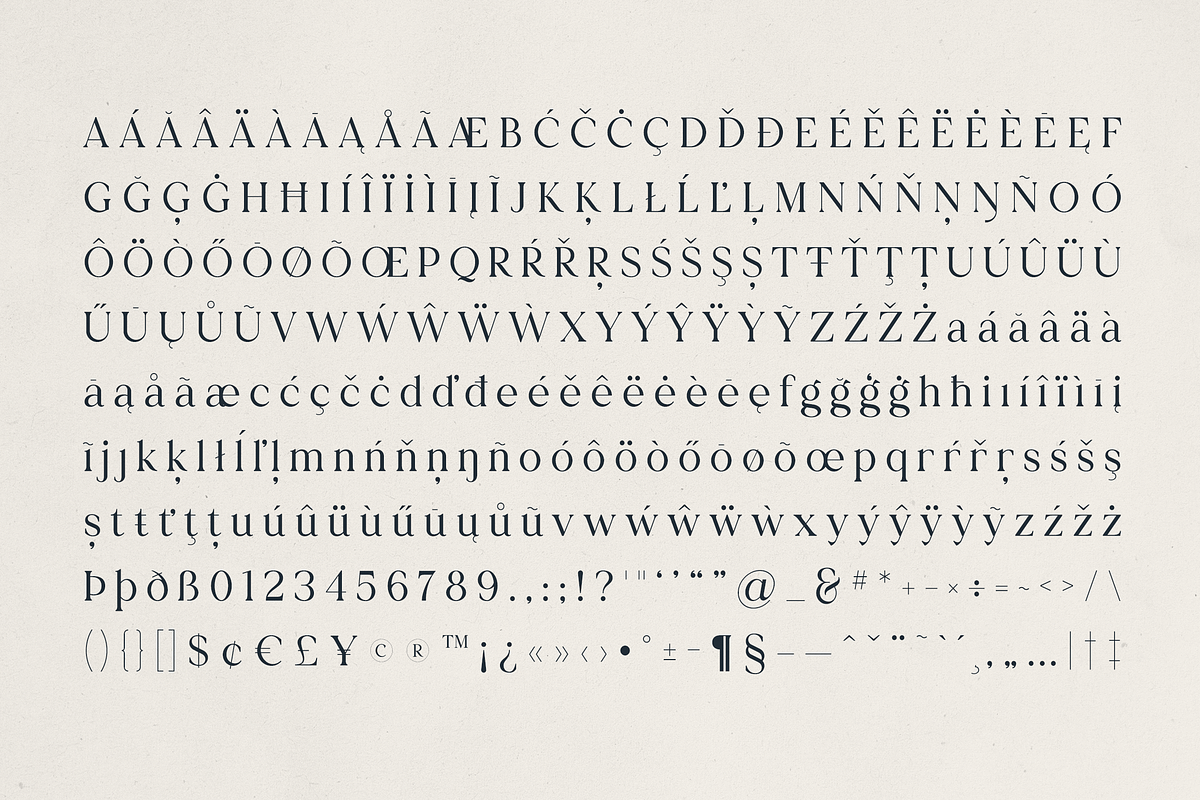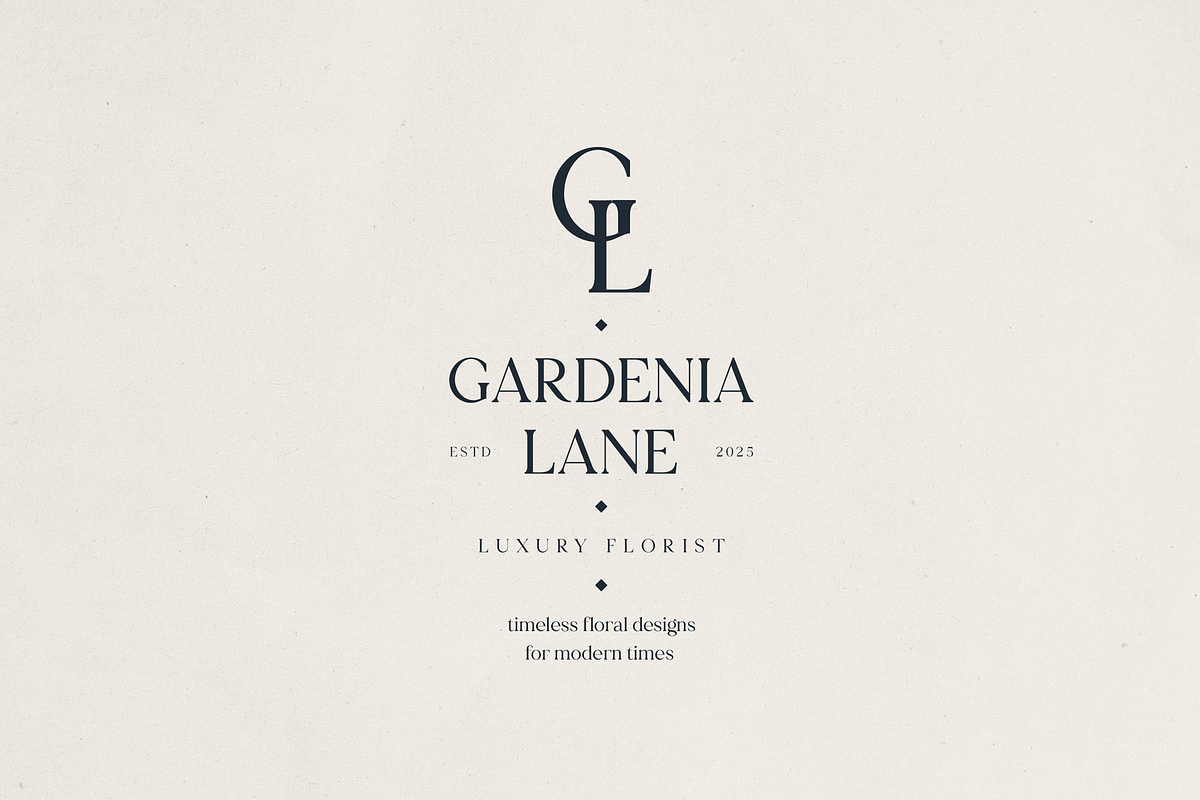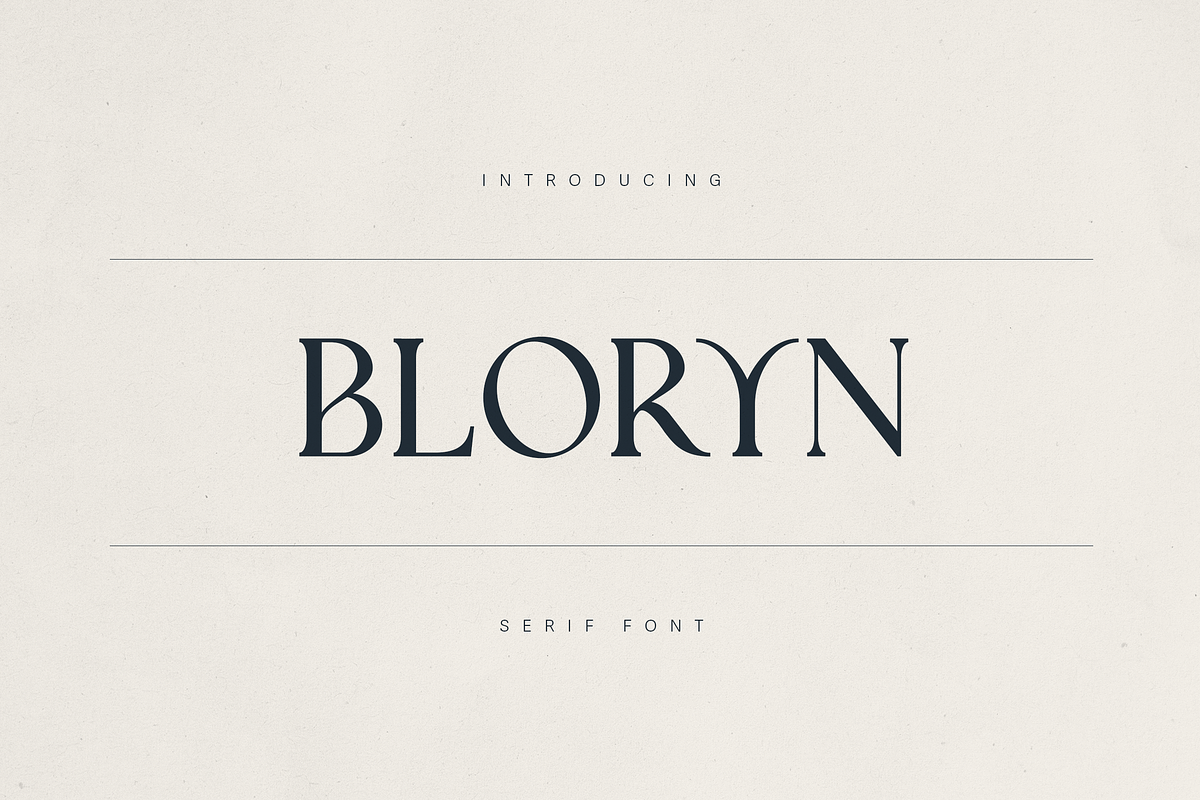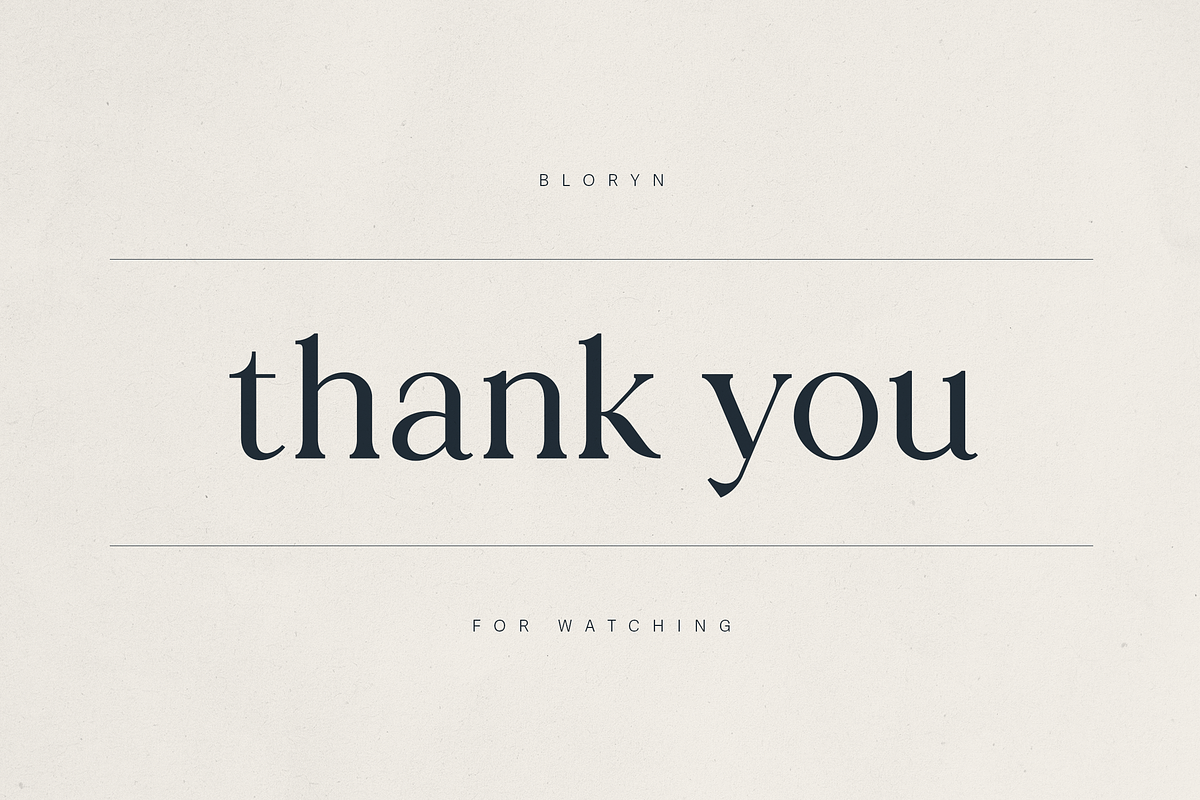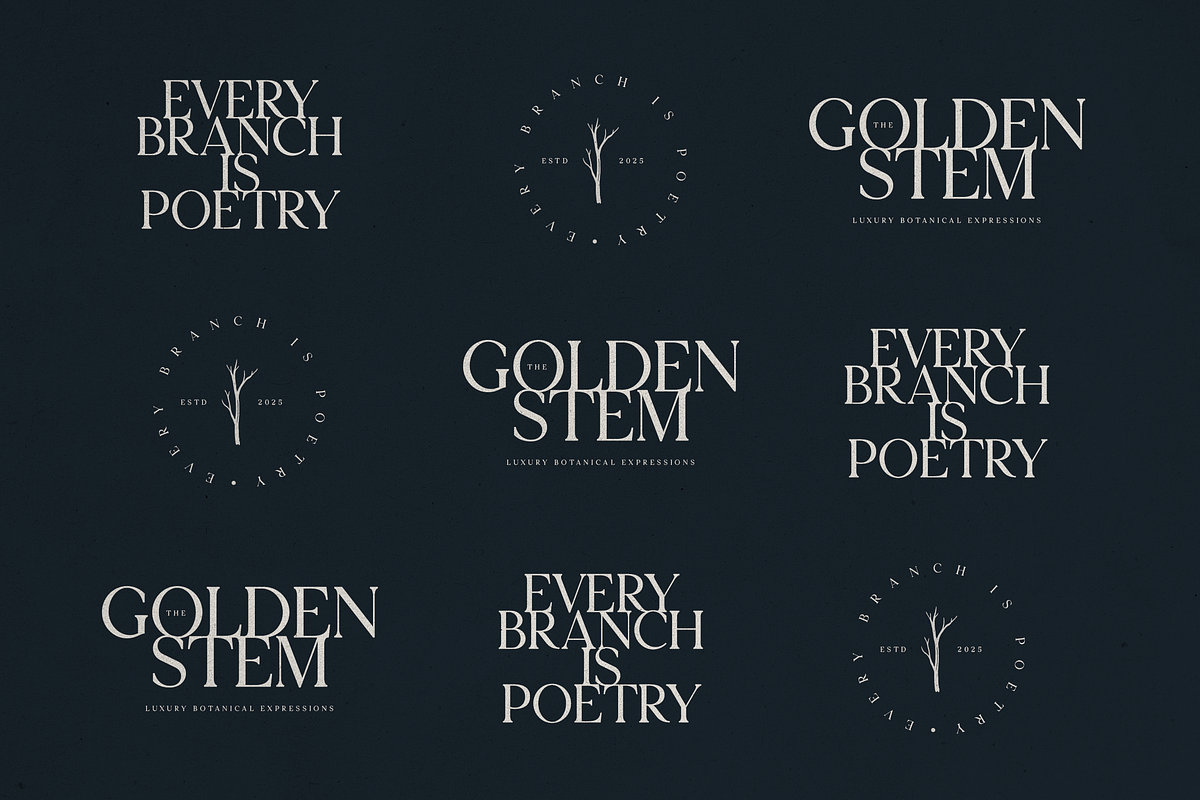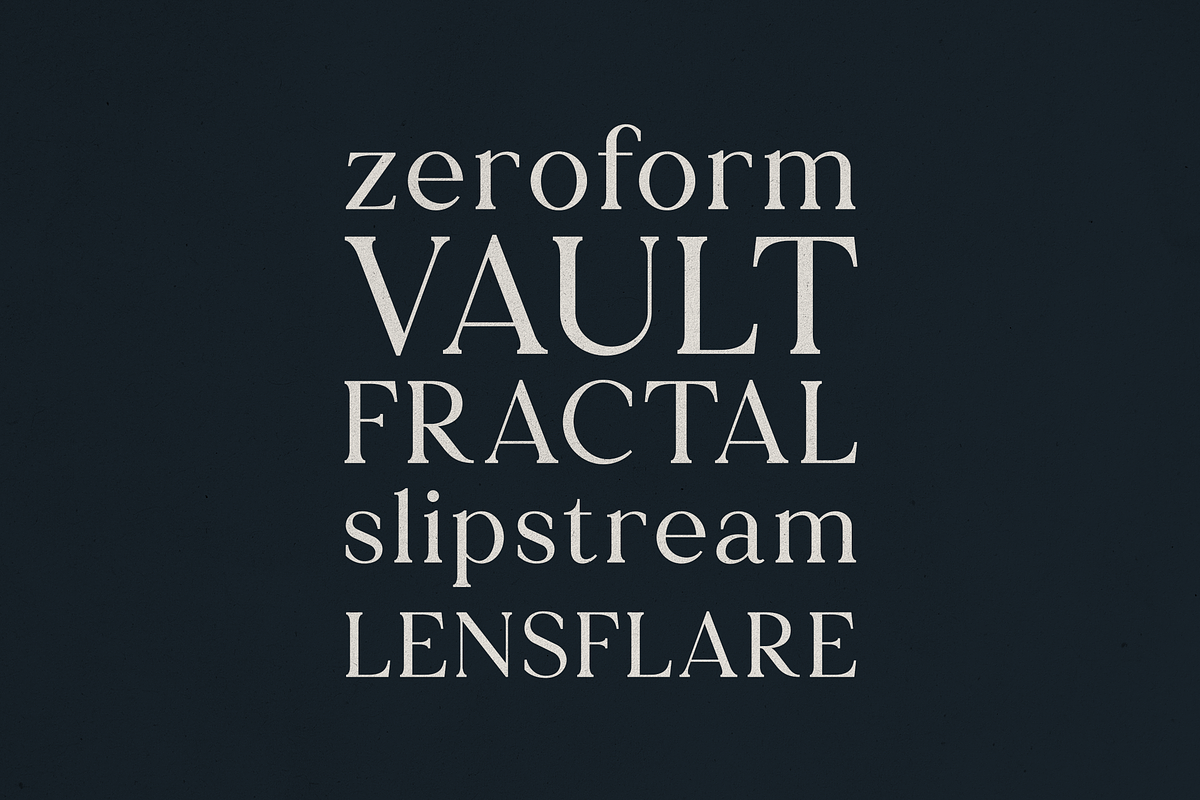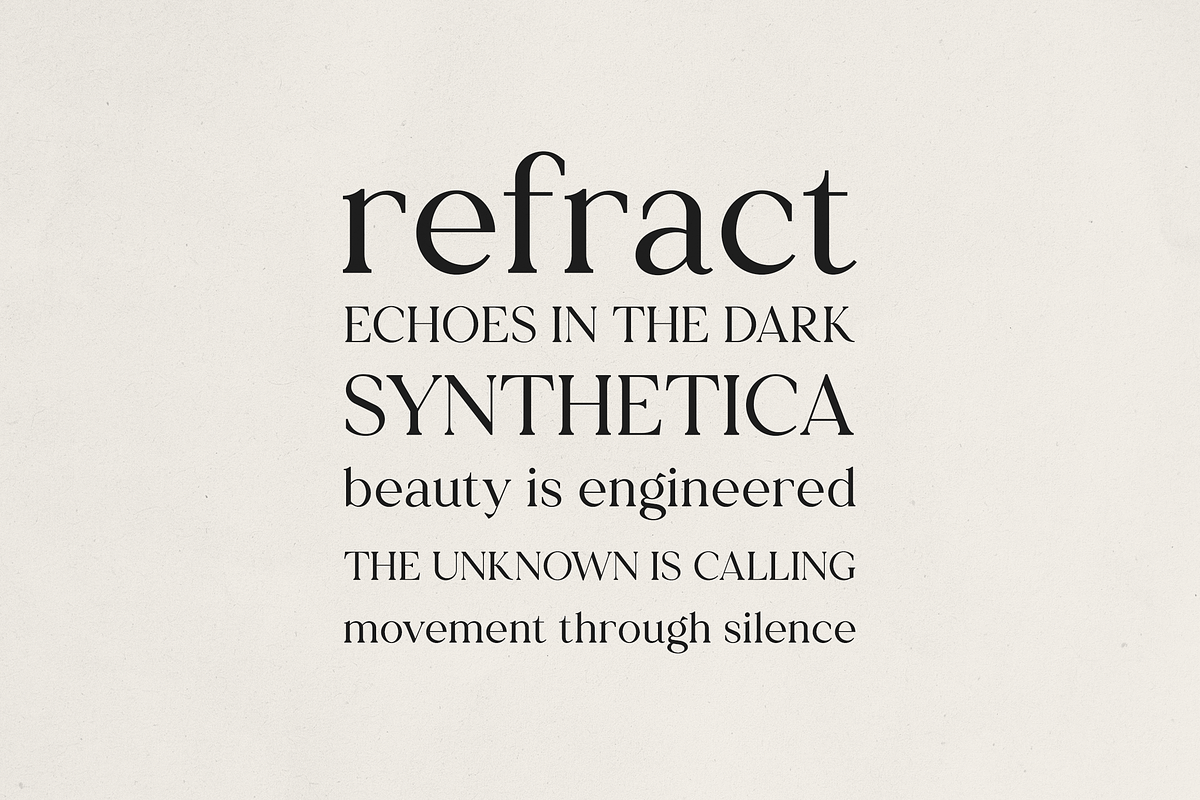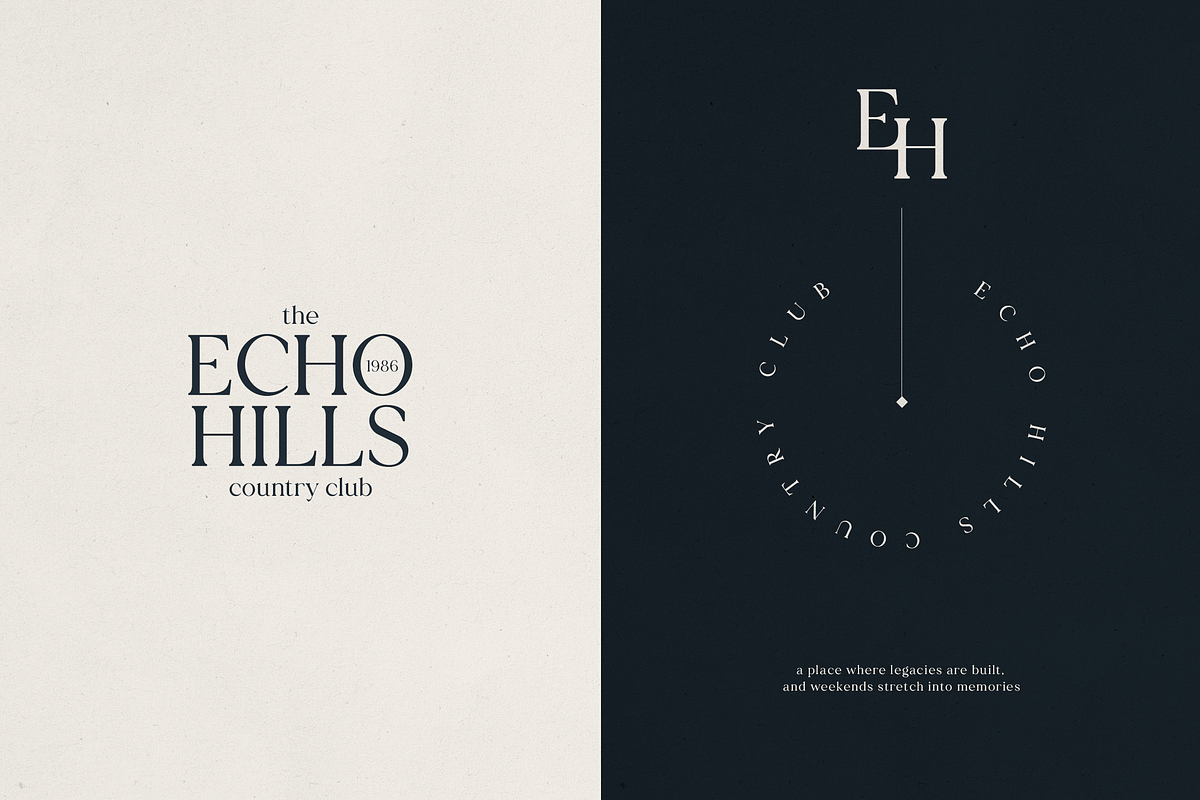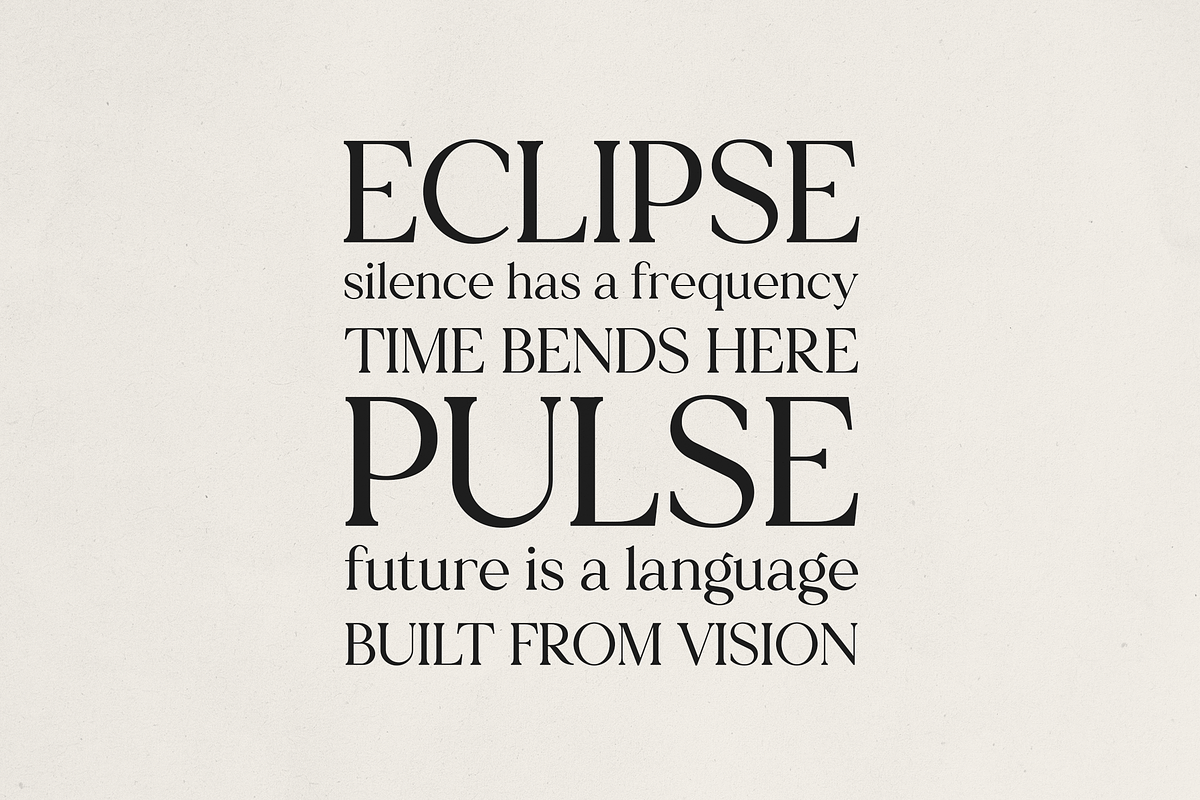
Bloryn — Elegant Serif Font
Bloryn is a high-contrast serif font that blends classic elegance with subtle modern curves, perfect for luxury branding, editorial design, and visual storytelling. Designed with versatility in mind, Bloryn delivers both sophistication and readability, making it an excellent choice for logos, headlines, packaging, and identity systems.
This font features beautifully sculpted letterforms with distinctive terminals and refined stroke contrast, giving it a striking presence in both minimalist and ornate design settings. Whether you're building a premium brand or designing thoughtful digital content, Bloryn adds personality without overpowering your message.
- Elegant high-contrast serif style
- Full uppercase & lowercase alphabet
- Multilingual support (85+ languages)
- Perfect for logos, branding, packaging, and editorial use
Use Cases:
Luxury fashion brands, boutique packaging, wedding designs, editorial spreads, lifestyle blogs, and high-end product visuals.
Bring timeless charm and modern edge to your next project with Bloryn — a font that speaks with poise and presence.